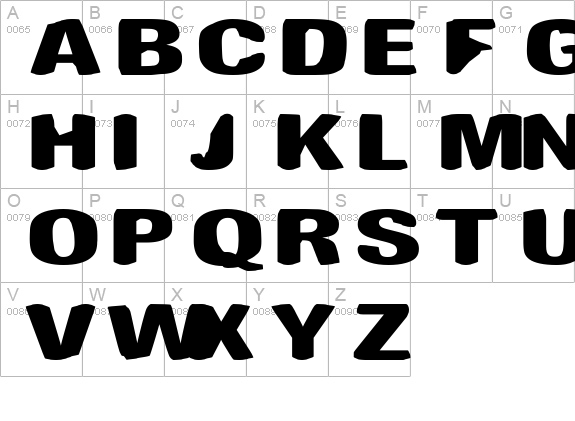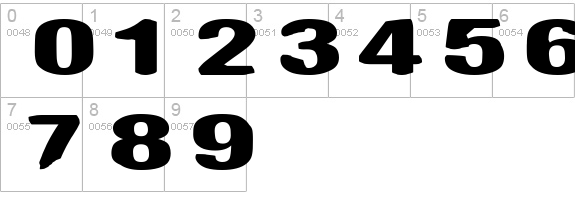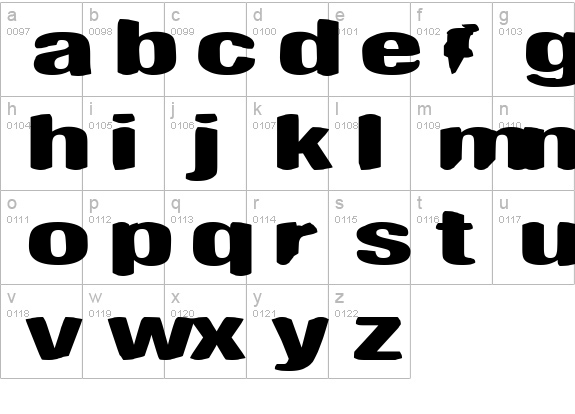
Antimony Funk Font Details
Antimony Funk is a bold and playful display font that exudes charisma and energy. With its funky and unique design, this font is perfect for catching the eye and making a statement. The dynamic letterforms and quirky details give Antimony Funk a lively and fun personality that is sure to stand out in any project. What makes Antimony Funk even more appealing is that it is free to download at FontsMarket.com. This means you can easily add this eye-catching font to your collection without any cost. Whether you're designing posters, logos, social media graphics, or anything else that needs a touch of personality, Antimony Funk is a fantastic choice that won't break the bank. Download it today and let your creativity shine with this free and fabulous font!